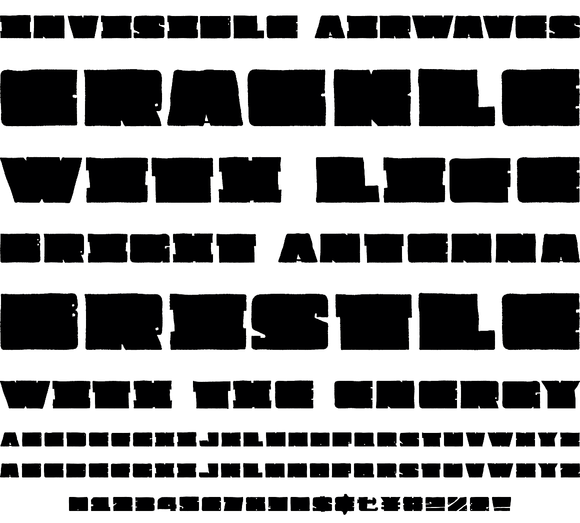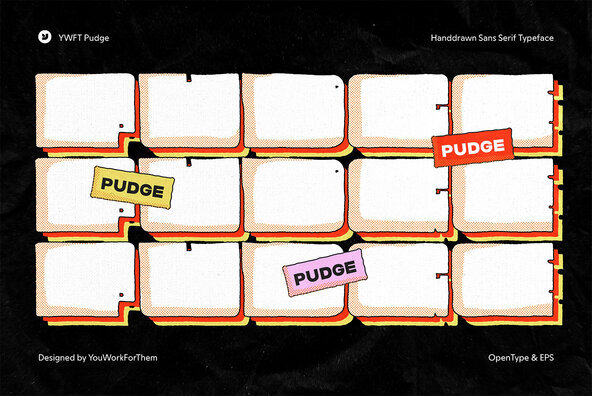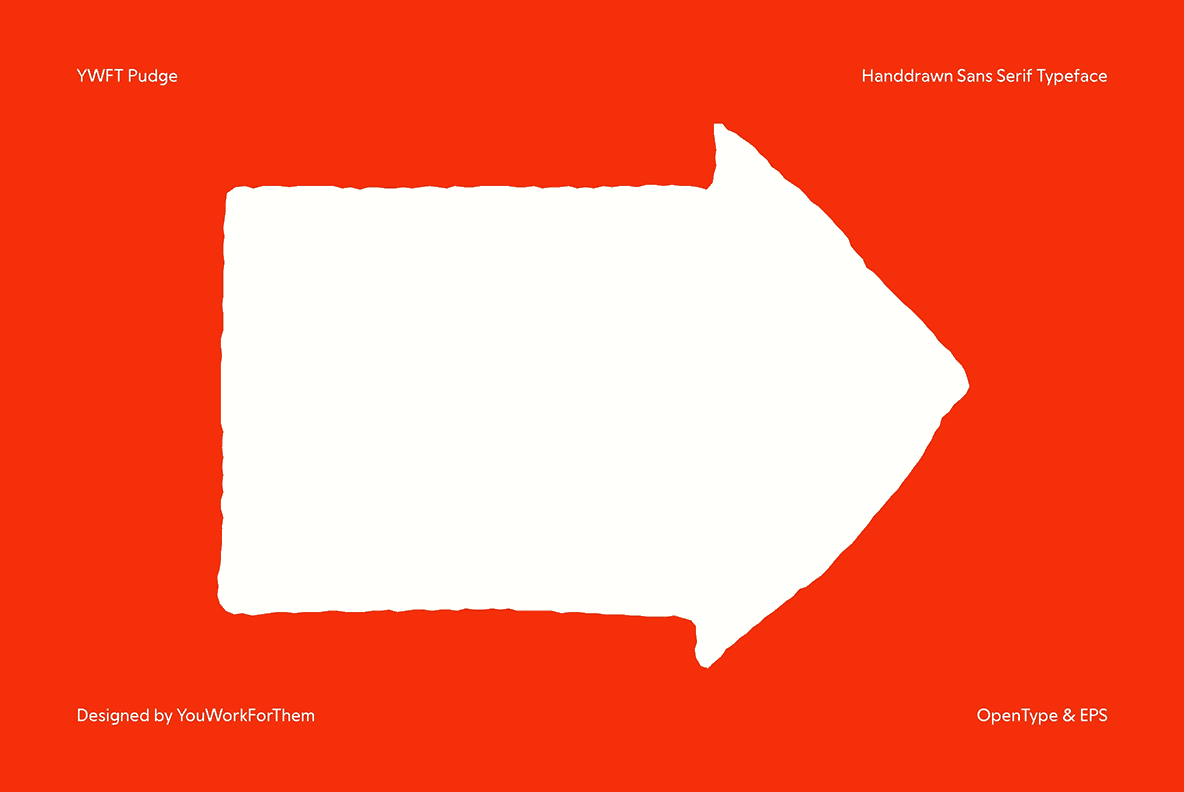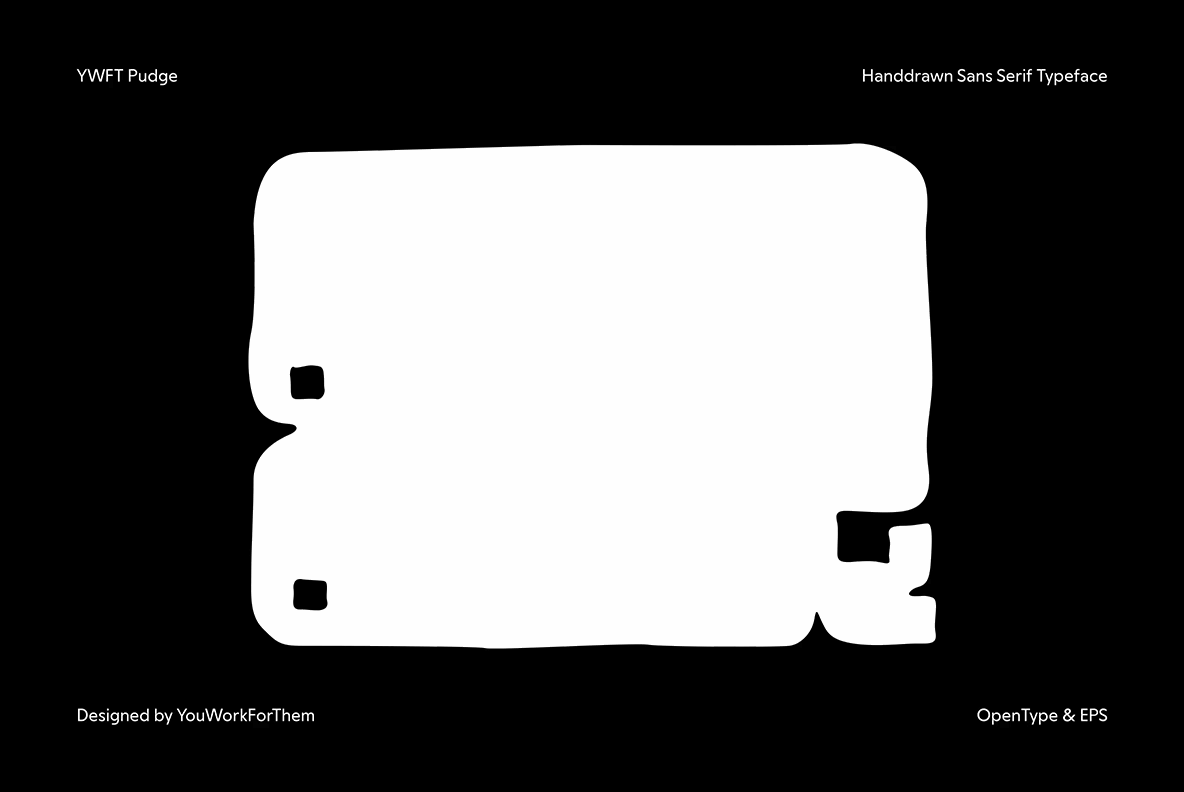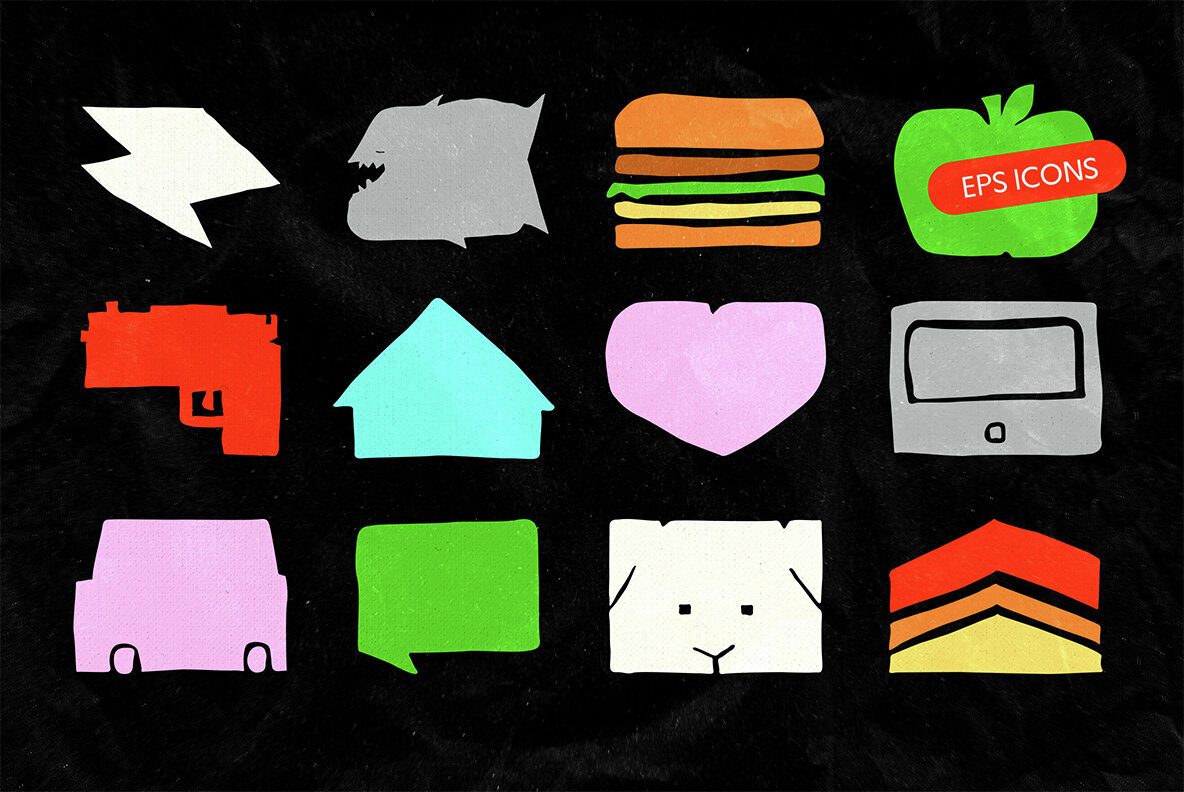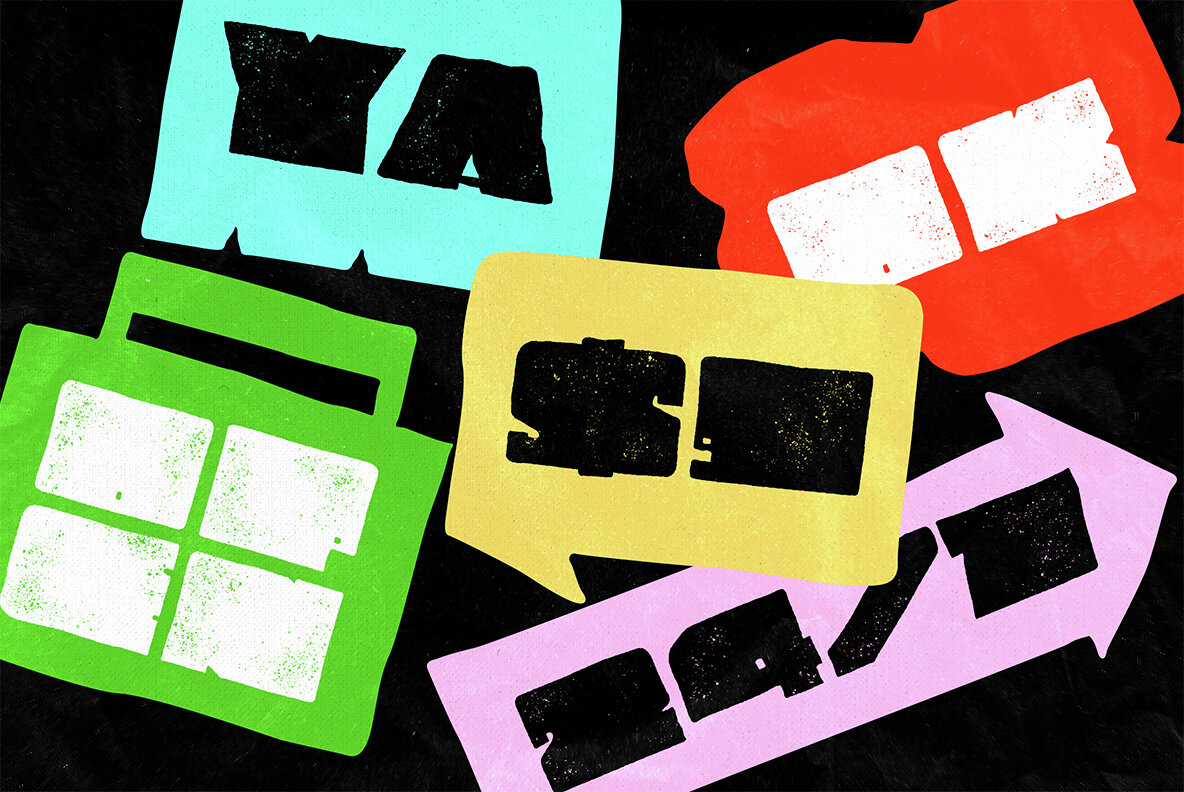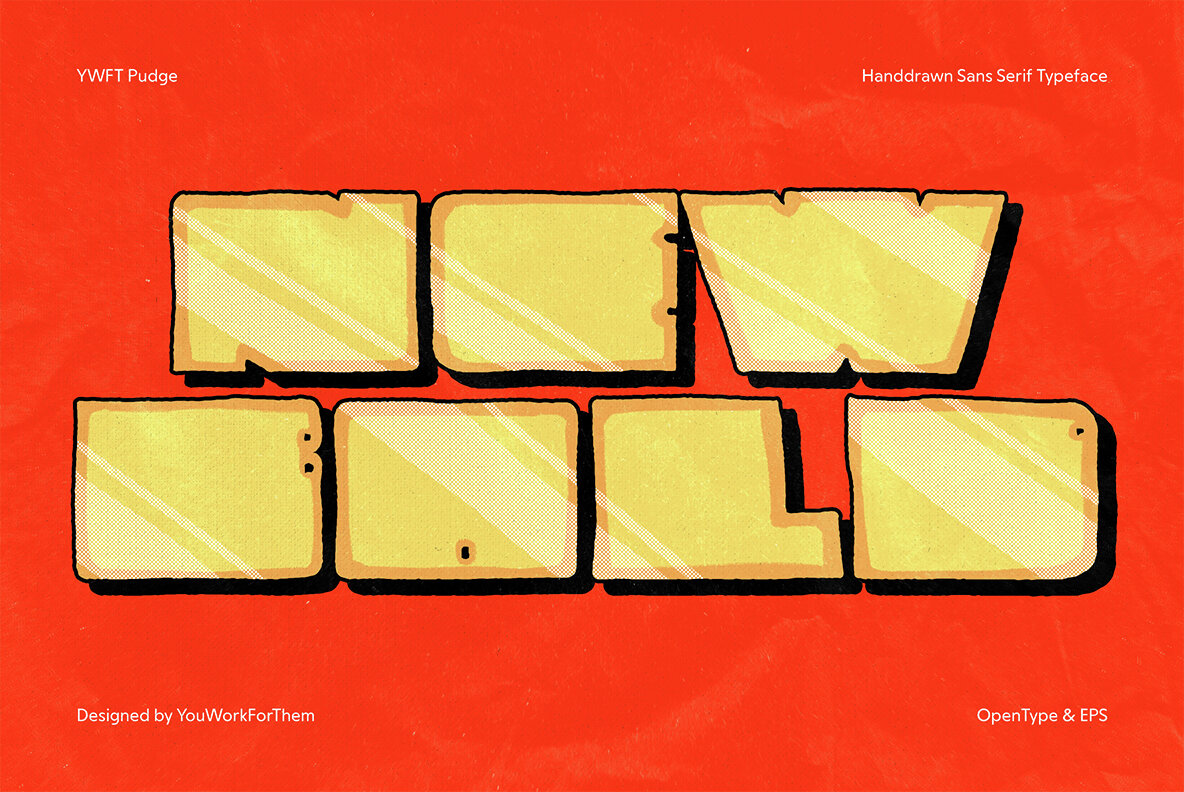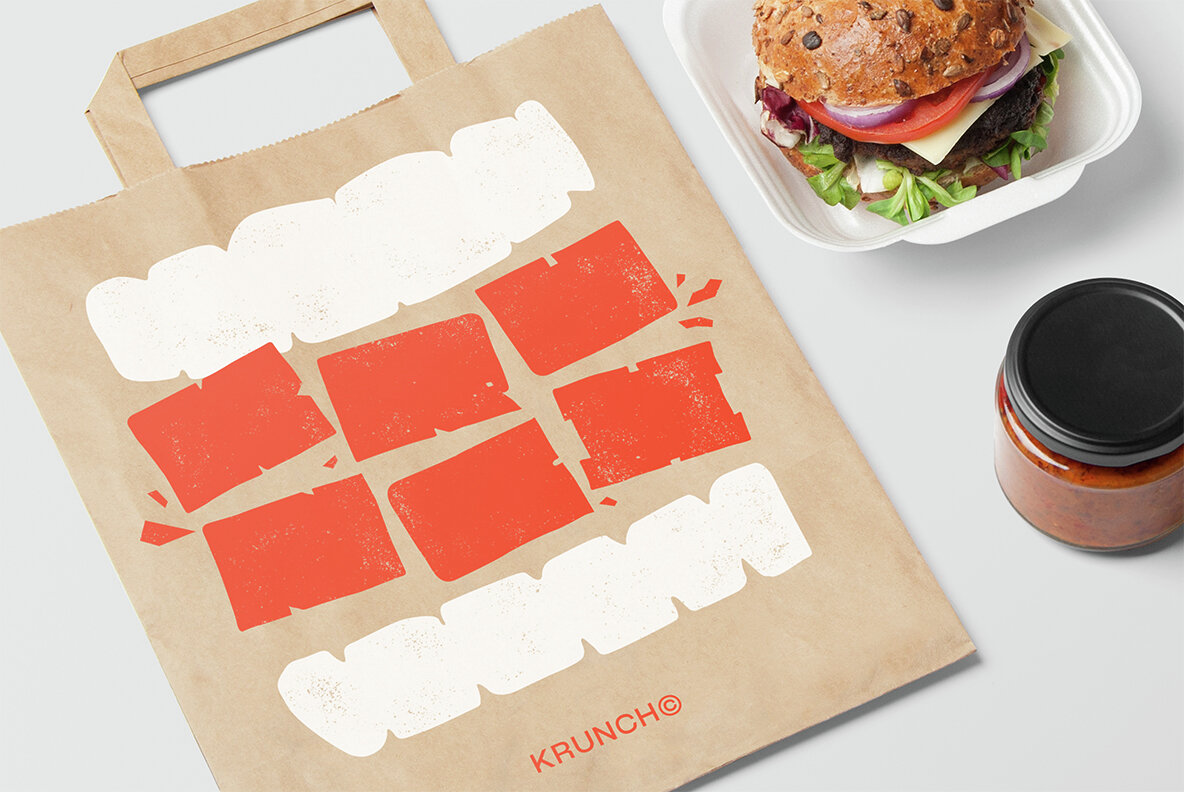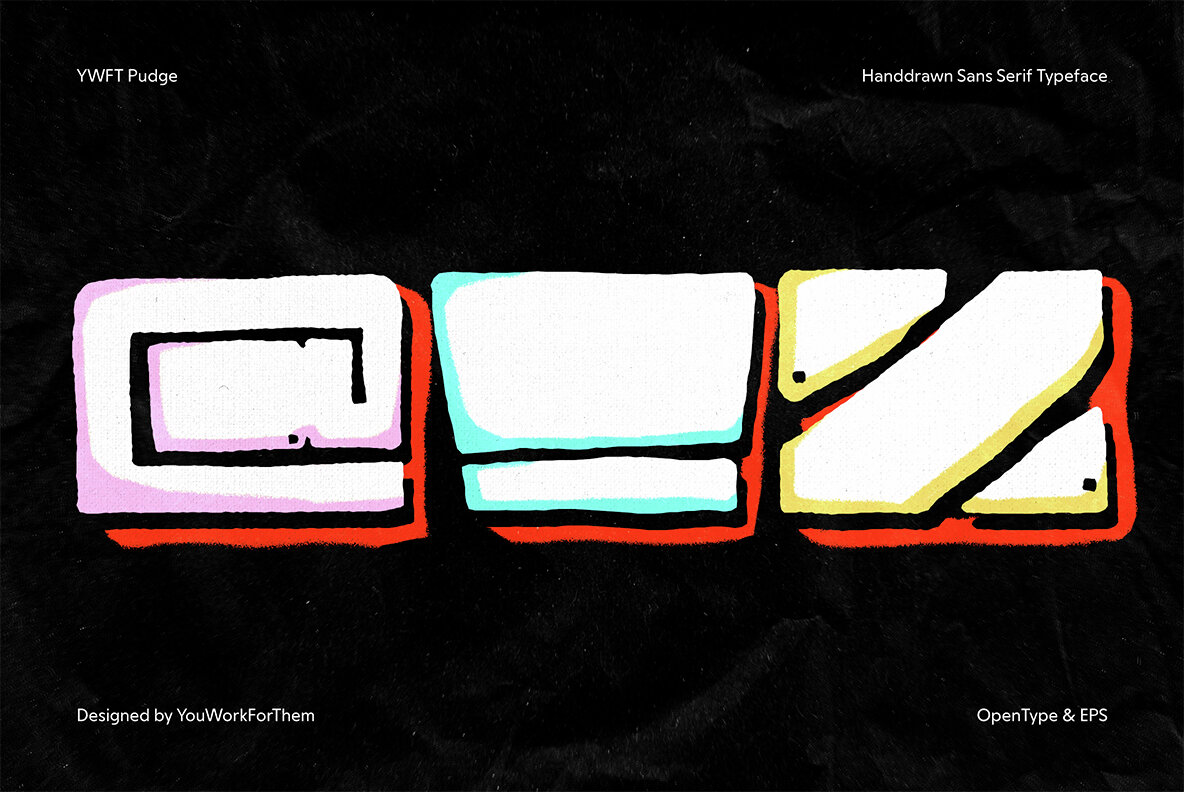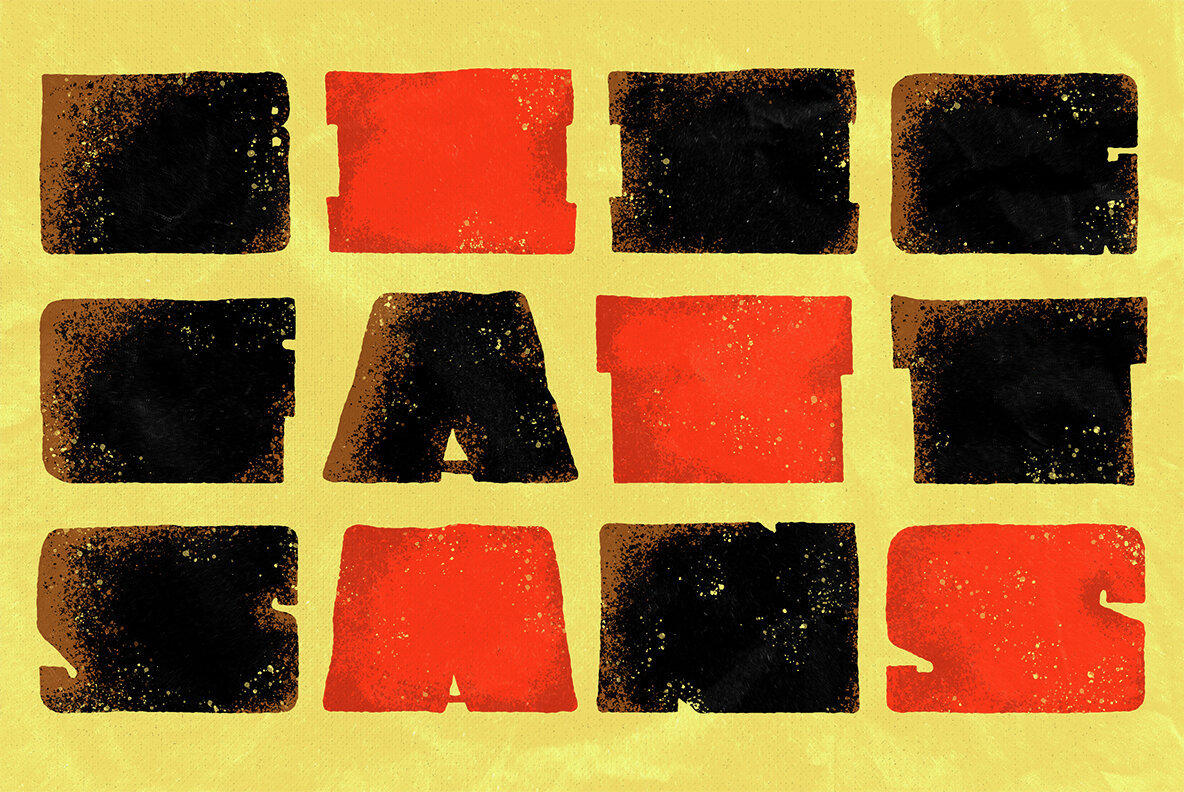
YWFT Pudge
Extreme girth is the name of the YWFT Pudge game. This thing is a monster. An Opentype font design set in super overweight style with a hand-drawn touch, YWFT Pudge is perfect for the biggest and fattest of headlines. Not fit to stop at the basics, we also provide you with a bonus handset file (eps) of extra letter and icon items. Designed by YouWorkForThem (2008-2010).